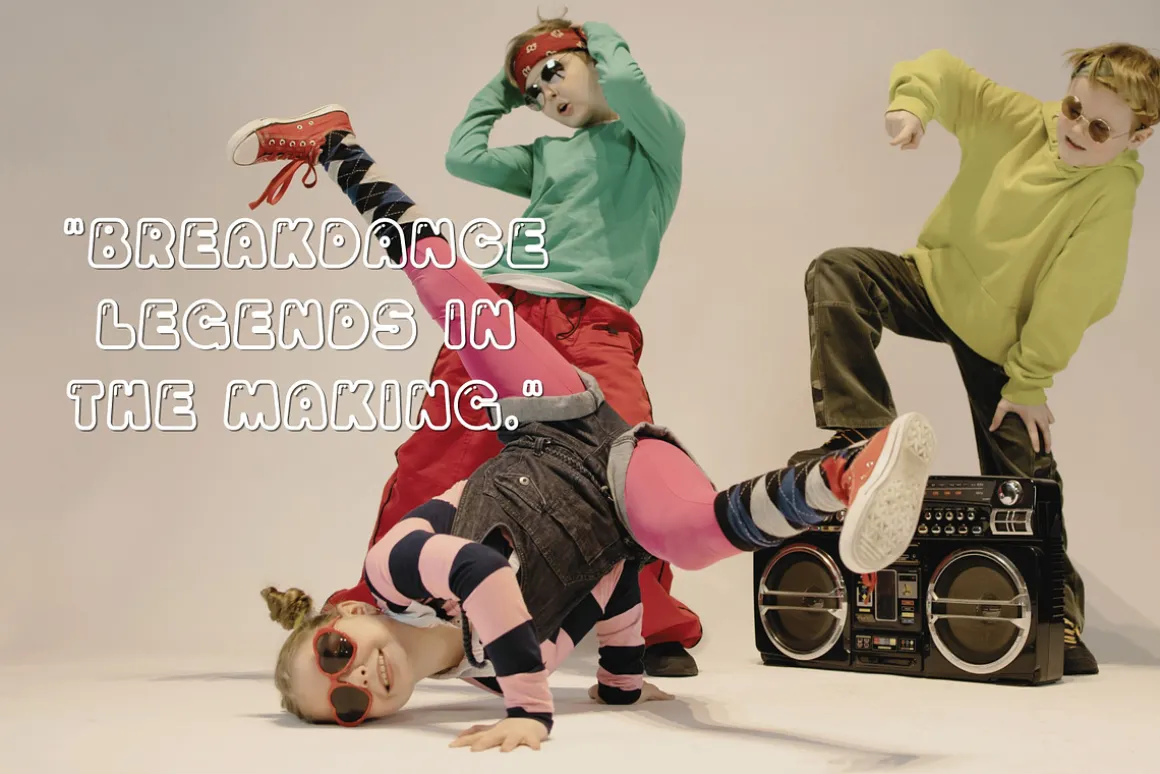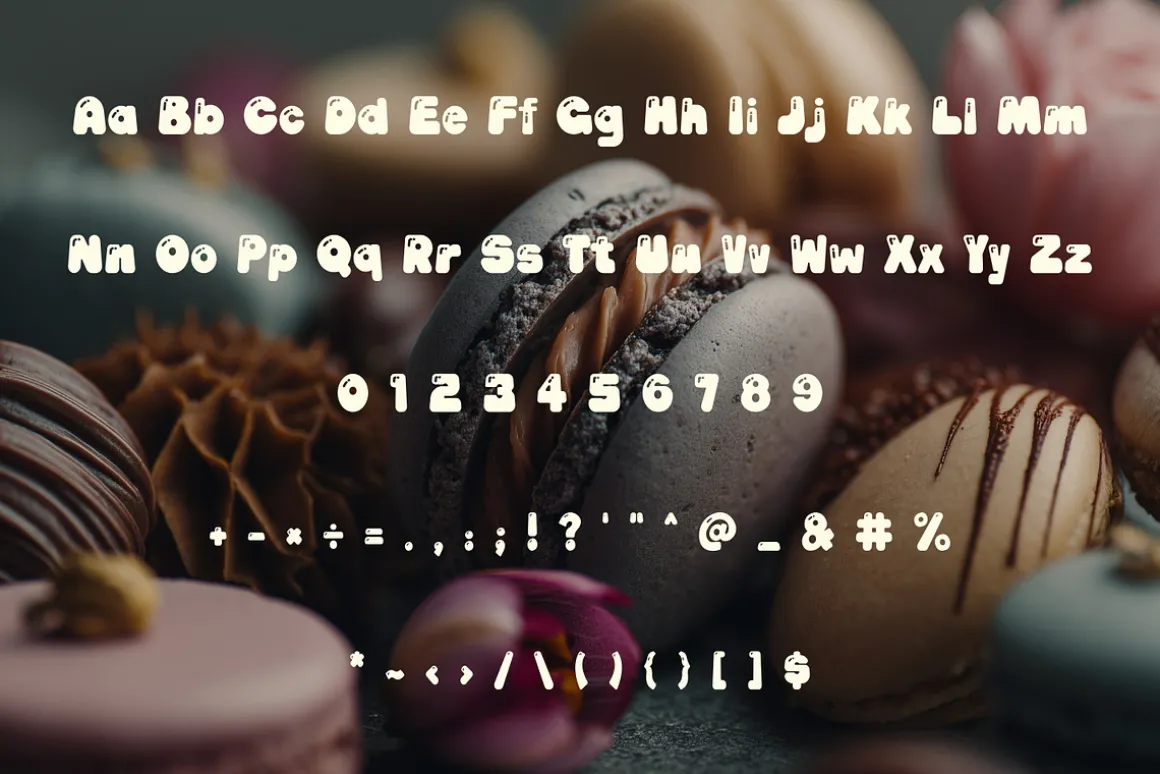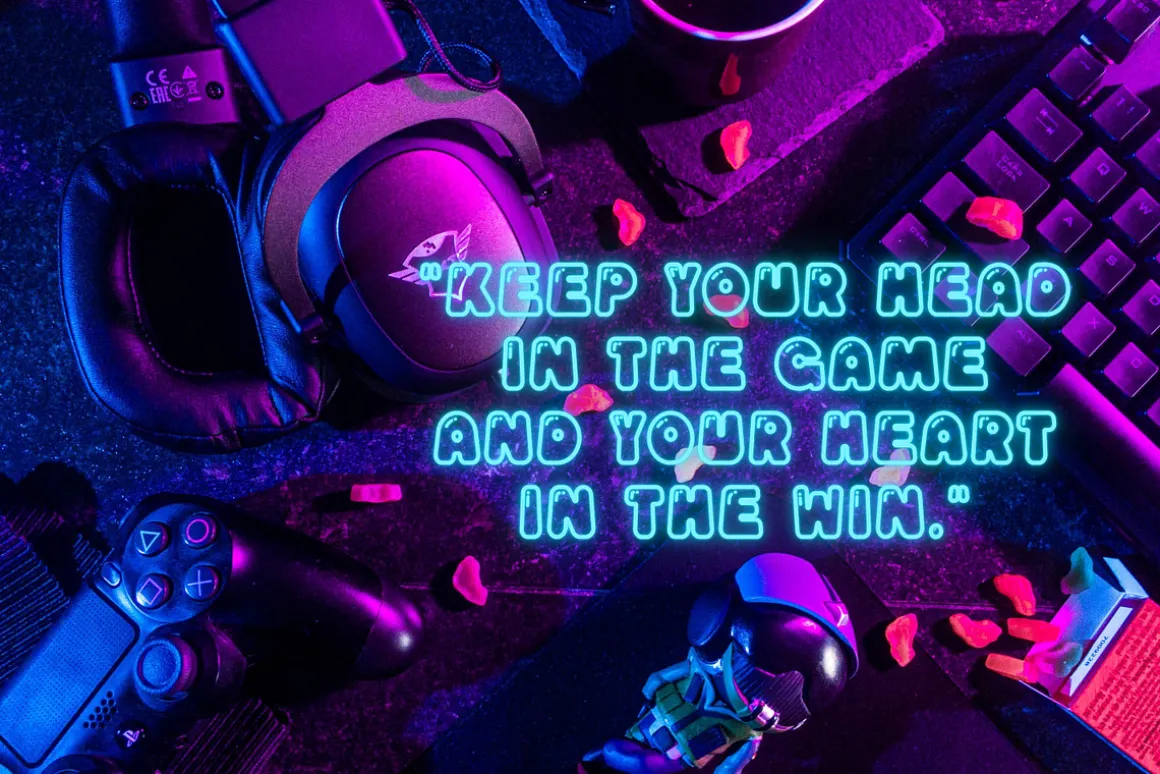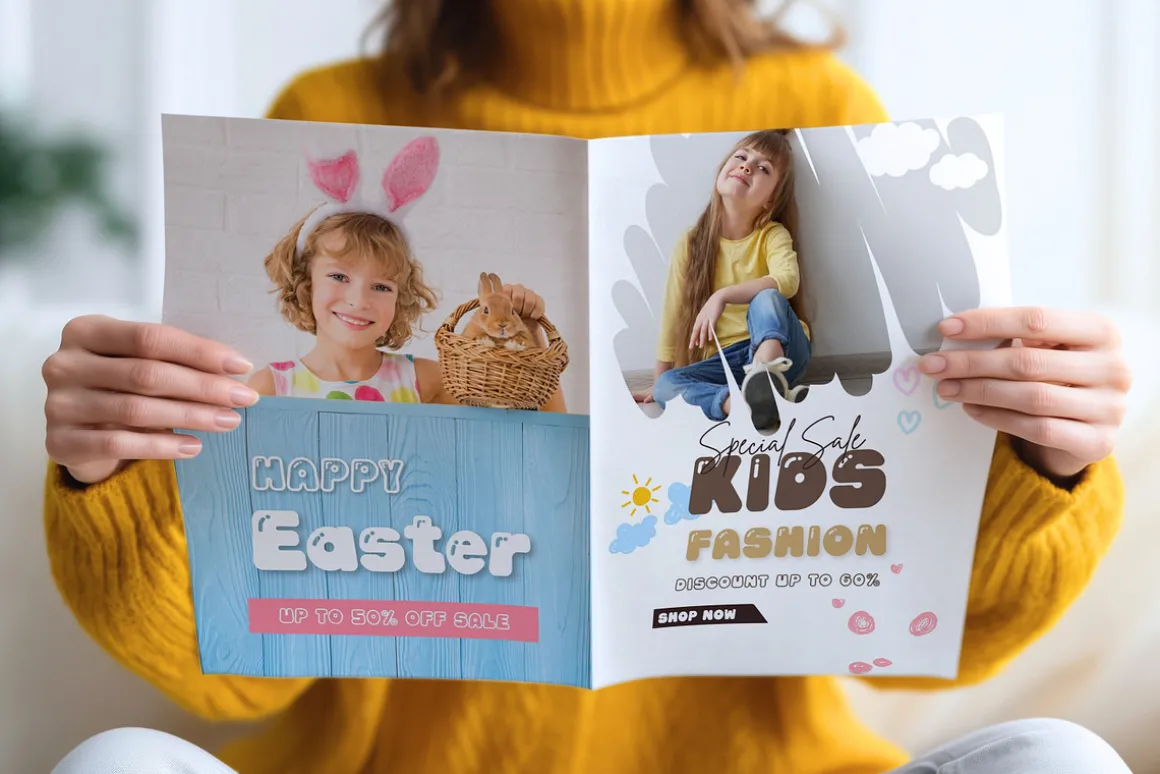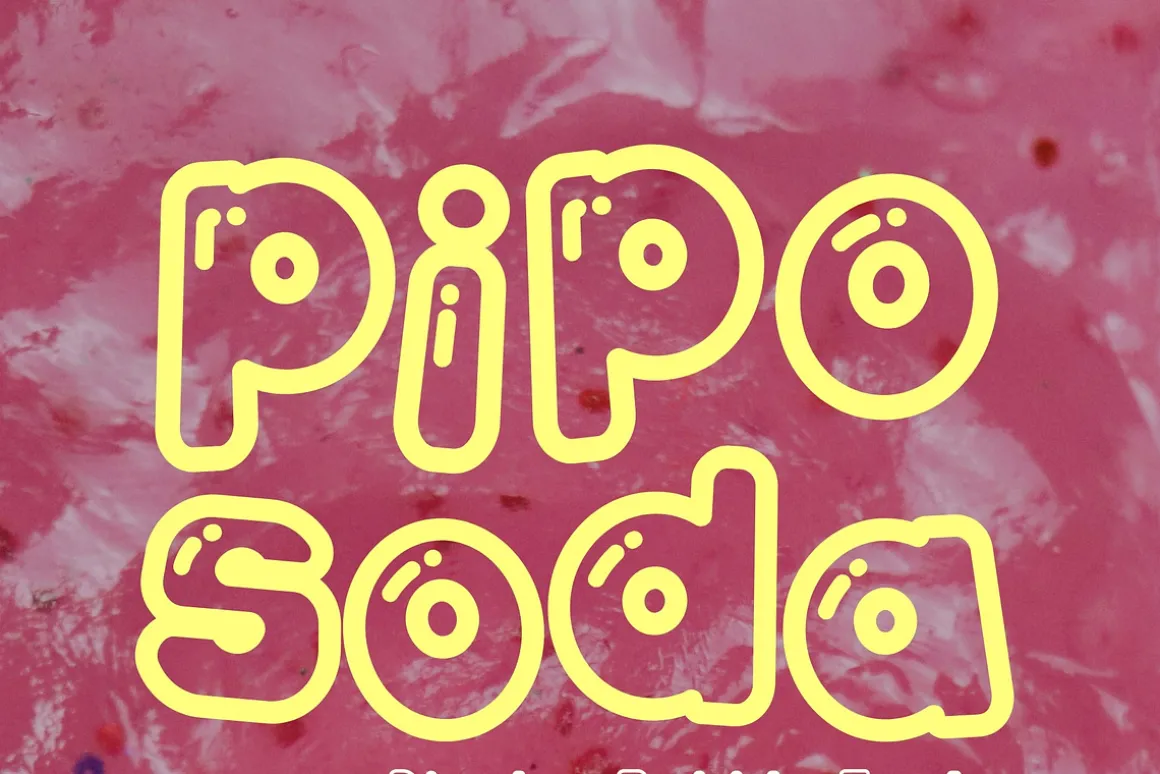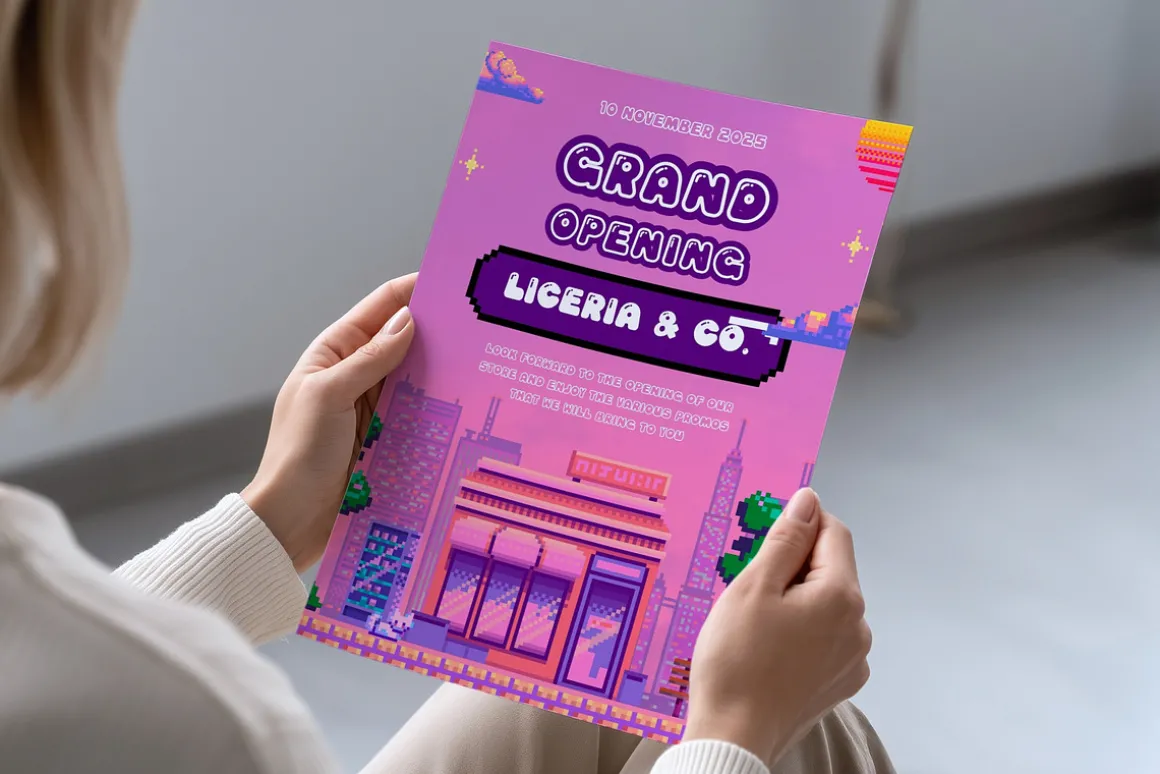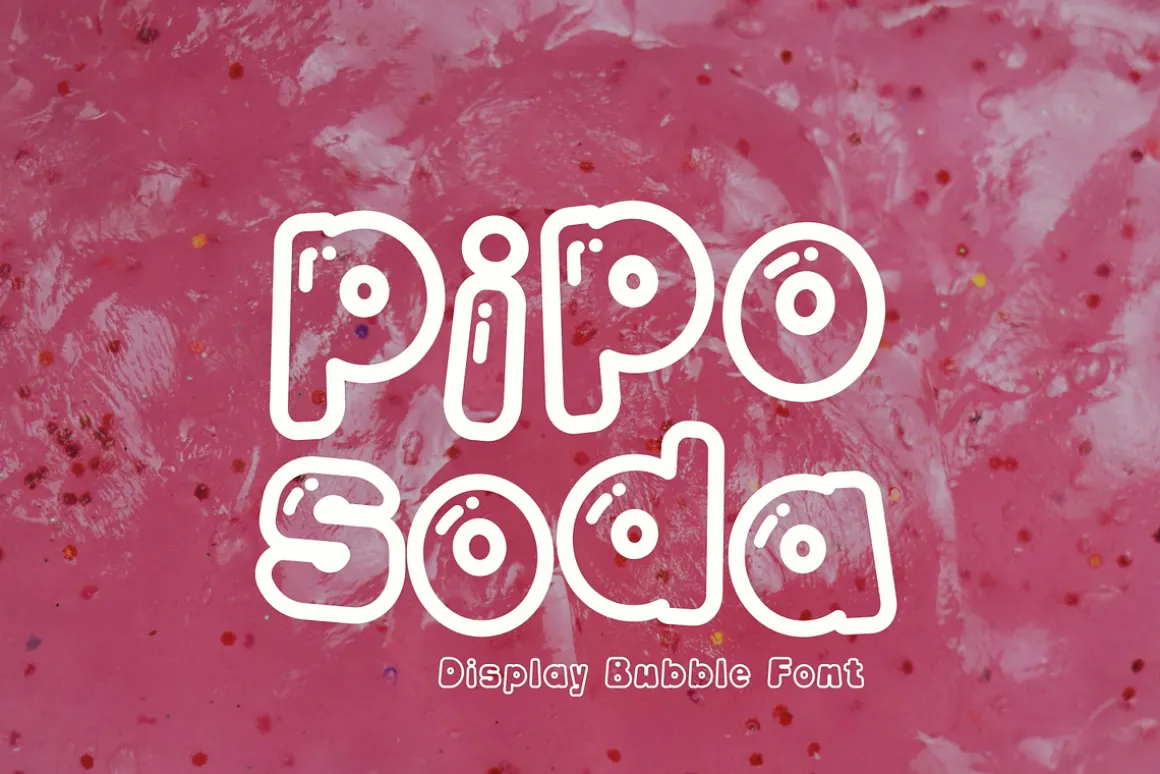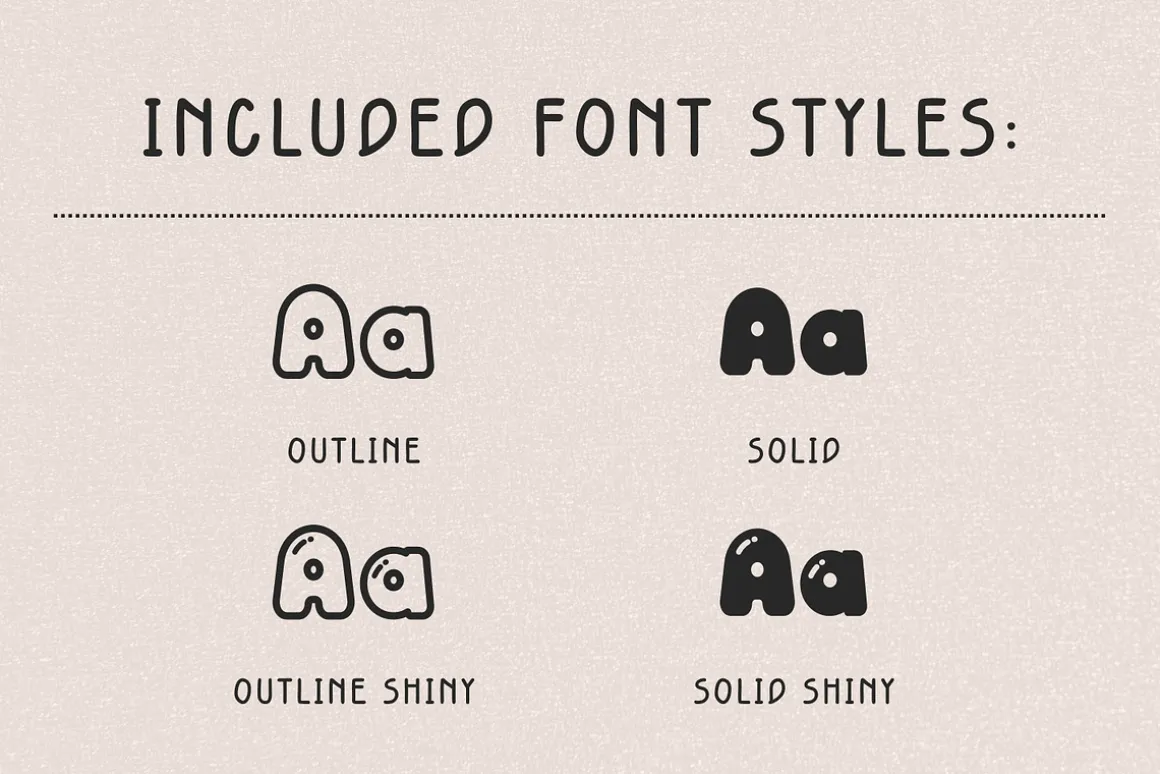
✨ Pipo Soda is a cute and playful bubble display font with a soft rounded style and fun cartoon-inspired personality. This font is perfect for adding a sweet, cheerful, and eye-catching touch to your creative projects.
Its bubbly letterforms make it ideal for kawaii branding, sticker designs, kids products, playful packaging, invitations, t-shirts, social media graphics, and Cricut crafts.
Whether you’re designing for a fun brand or creating adorable digital products, Pipo Soda adds a charming and happy feel to every project.
Pipo Soda font, 4 style (outline, outline shiny, solid, solid shiny) : OTF, TTF, WOFF, WOFF2, SVG